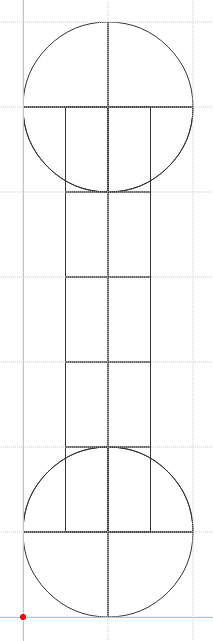
• THIS IS OBVIOUSLY NOT INTENDED FOR ANY ACTUAL USE
IT'S A CRYPTIC FONT WHOSE ENTIRE PURPOSE IS TO BE CONFUSING
You might want to change the circles so that they cnnect with the middles
this is quinary
circle is 1
rectangle is 2
triangle is 3
square is 4
pantagon is 5
for example rectangle triangle is 8, which is h's position in english(latin) alphabet
k and c share the same symbol because they can make the same sound i suppose
I meant something like this...